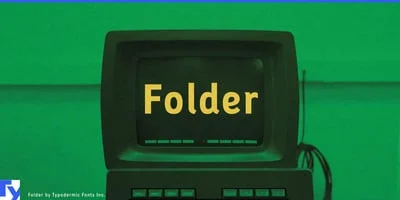
Folder Font is perfect for office branding, organizational systems, business documentation, filing system labels, corporate presentations, administrative materials, professional signage, institutional communications, workplace design, and modern office applications. This systematic typeface creates organized clarity in both digital interface and traditional print environments.
What makes Folder Font exciting is its perfectly organized character design that embodies efficiency and systematic organization with contemporary professionalism. The font features clean, structured letterforms with consistent spacing and institutional reliability that evoke well-organized filing systems and professional administration. Its systematic design establishes an atmosphere of operational excellence and workplace efficiency that resonates with business audiences.
Folder Font family includes organizational styles: Regular, Bold, Light, Condensed, Extended, and Tabular versions. Each variant maintains the font's systematic character while providing designers with structured options for creating organized typography systems and professional administrative communications.
This reliable organizational typeface brings systematic clarity to projects requiring professional presentation. Whether you're designing corporate identity, office systems, or administrative materials, Folder Font delivers exceptional organization and workplace sophistication. The font's structured proportions and systematic design ensure optimal functionality across various business applications and office environments.
Business professionals and corporate designers appreciate how Folder Font perfectly captures the essence of workplace organization and administrative excellence. Its systematic foundation combined with professional refinements makes it essential for corporate and institutional design projects. Download today and organize your designs with this exceptionally structured professional typography.